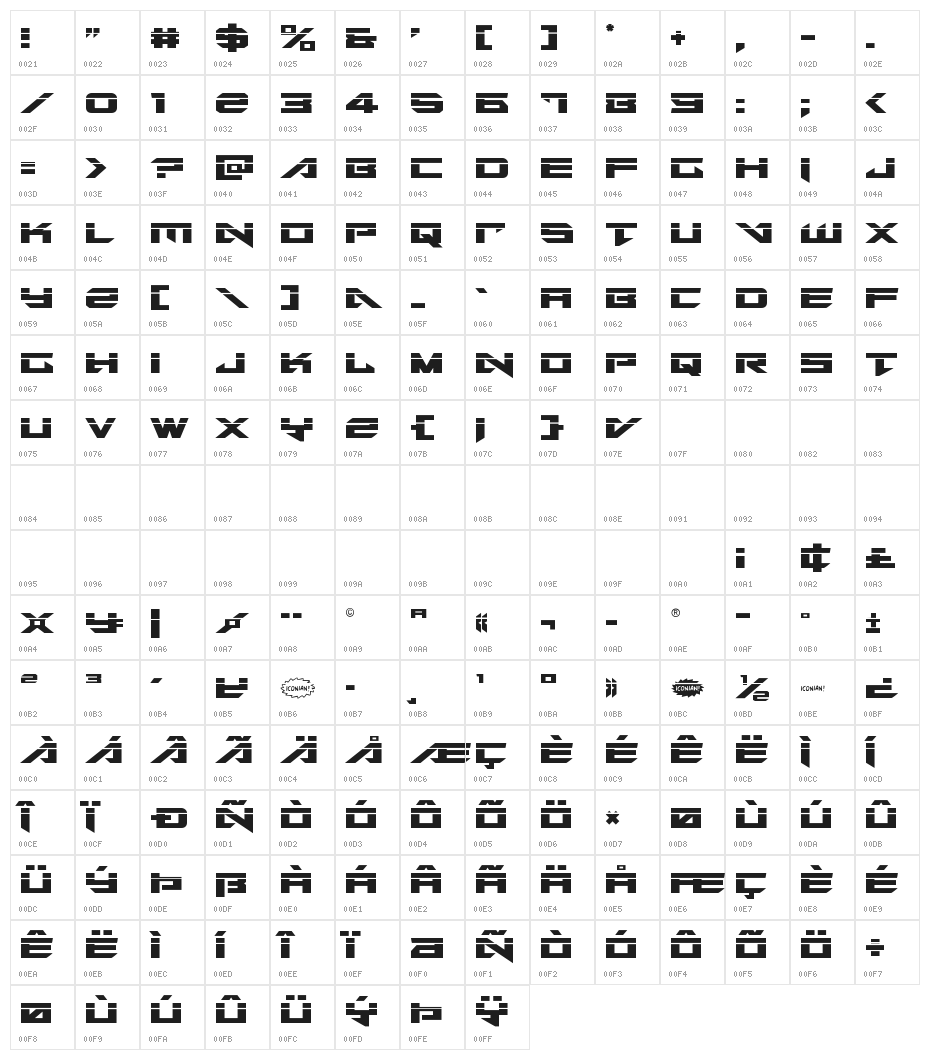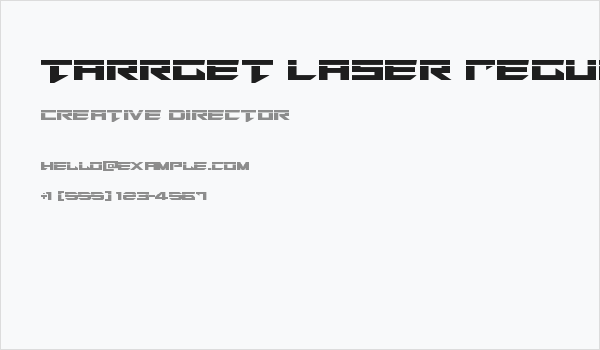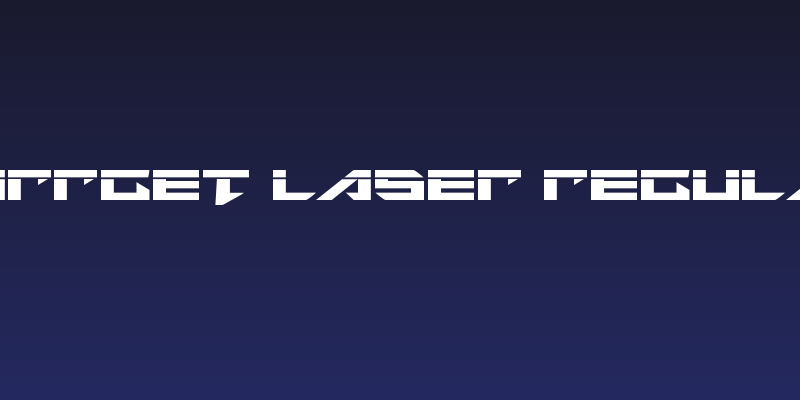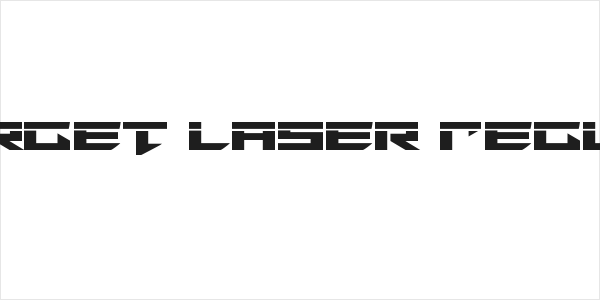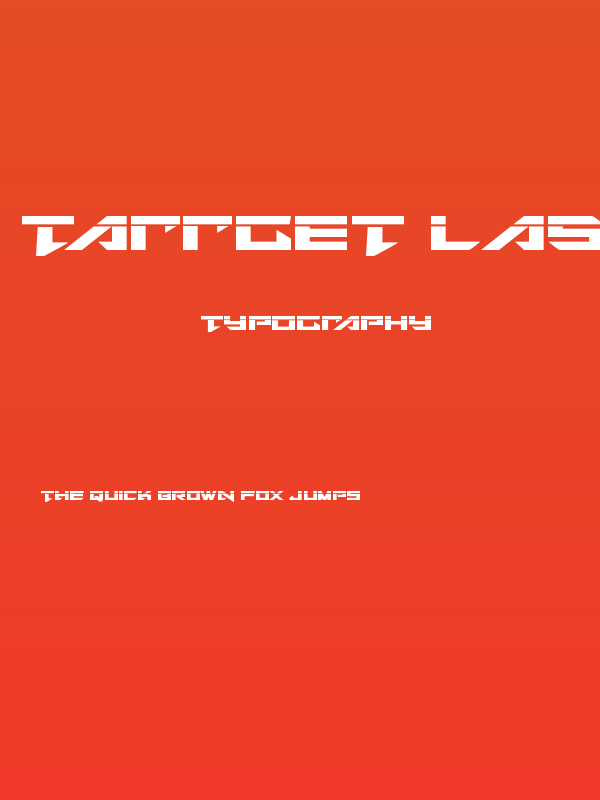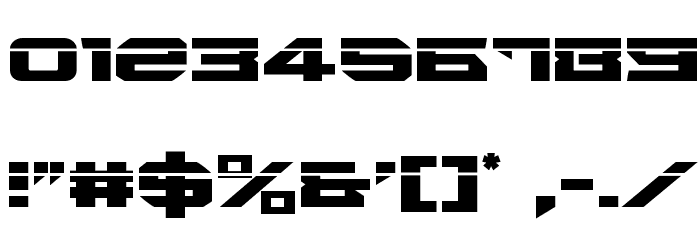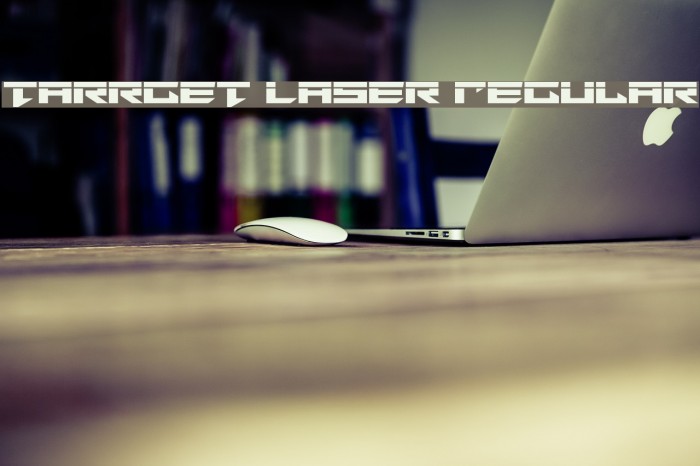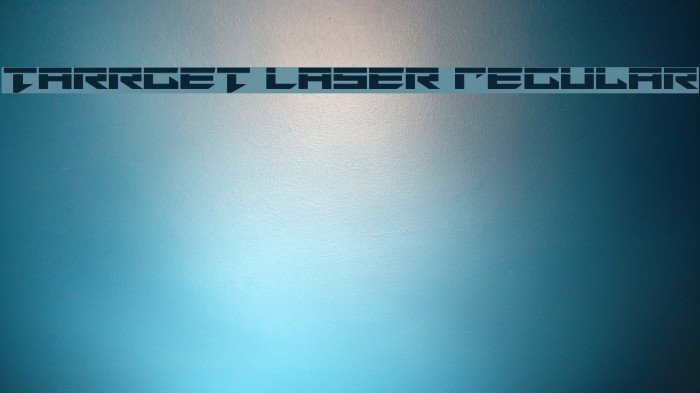
Tarrget Laser Regular Font
Tarrget Laser Regular Description
This font features a futuristic and angular design, characterized by sharp edges and geometric shapes. The uppercase letters are bold and striking, with a consistent height and width that create a uniform appearance. The lowercase letters maintain the same angular style, ensuring cohesion across different text cases. Numbers and special characters are designed with the same attention to detail, making them easily recognizable while maintaining the overall aesthetic. The font's unique style makes it suitable for projects that require a modern and edgy look.